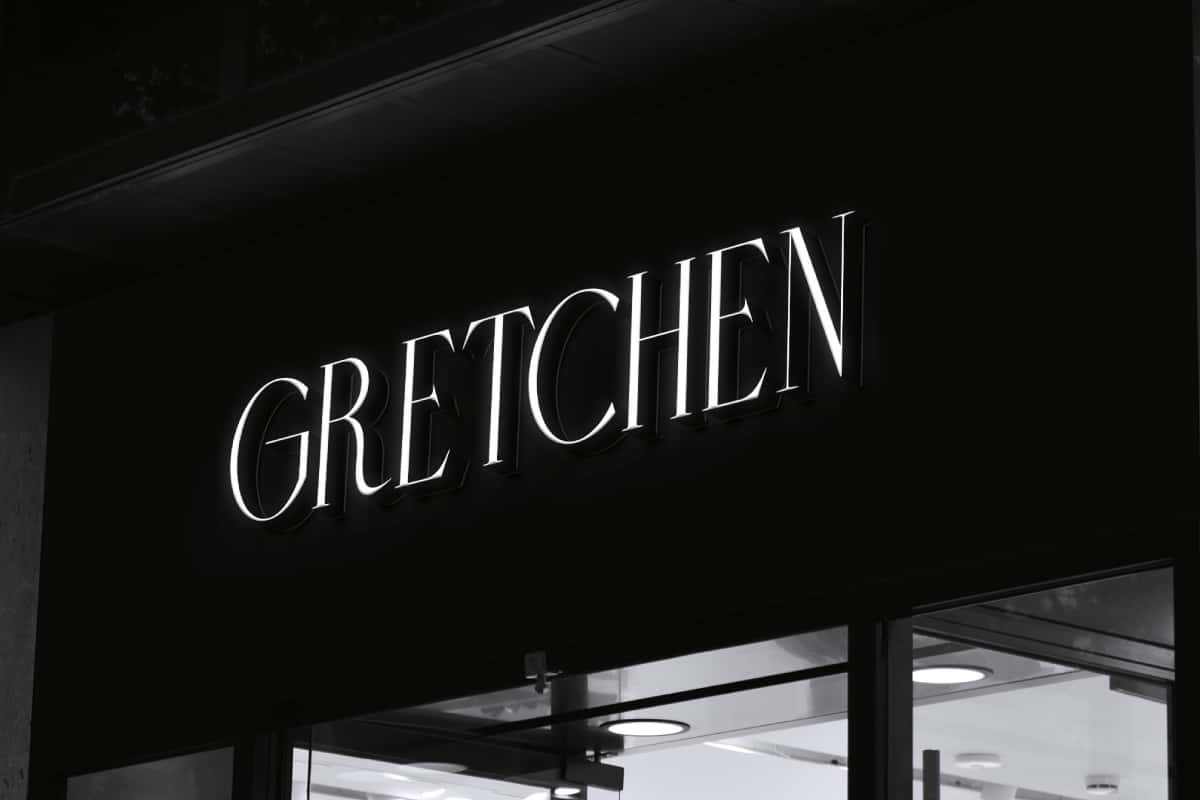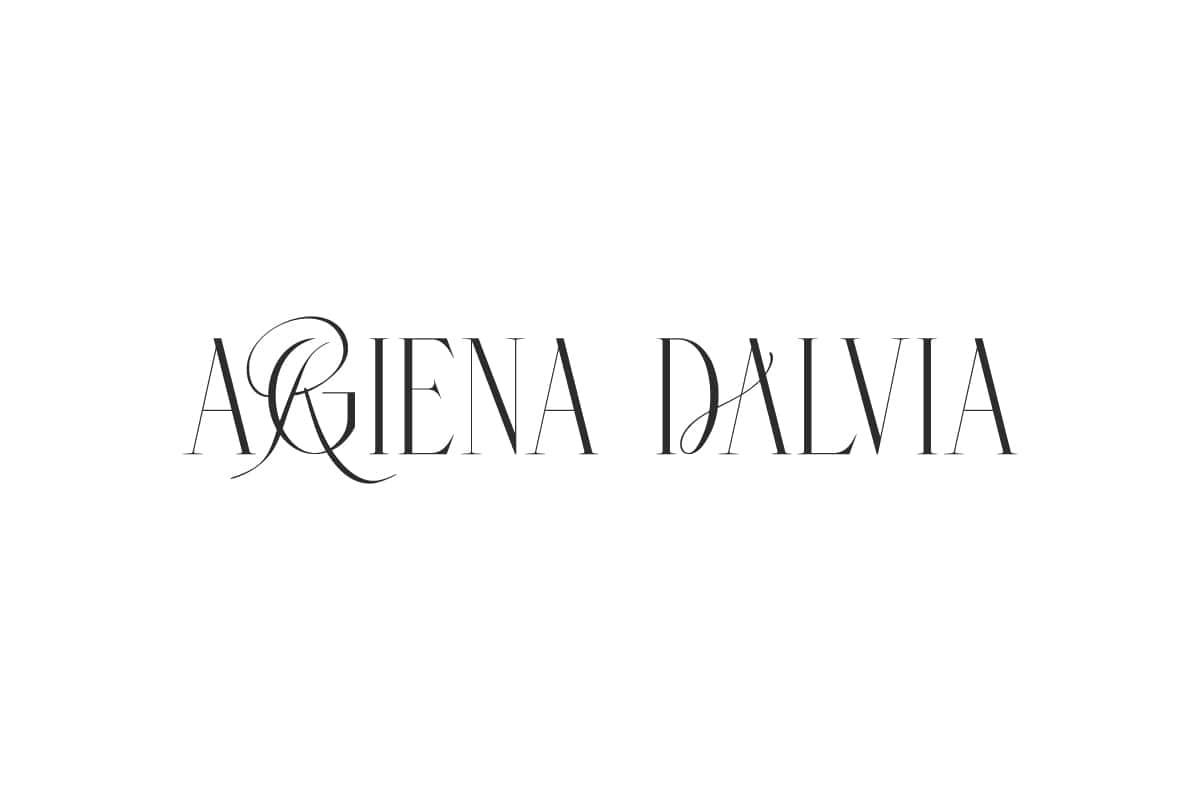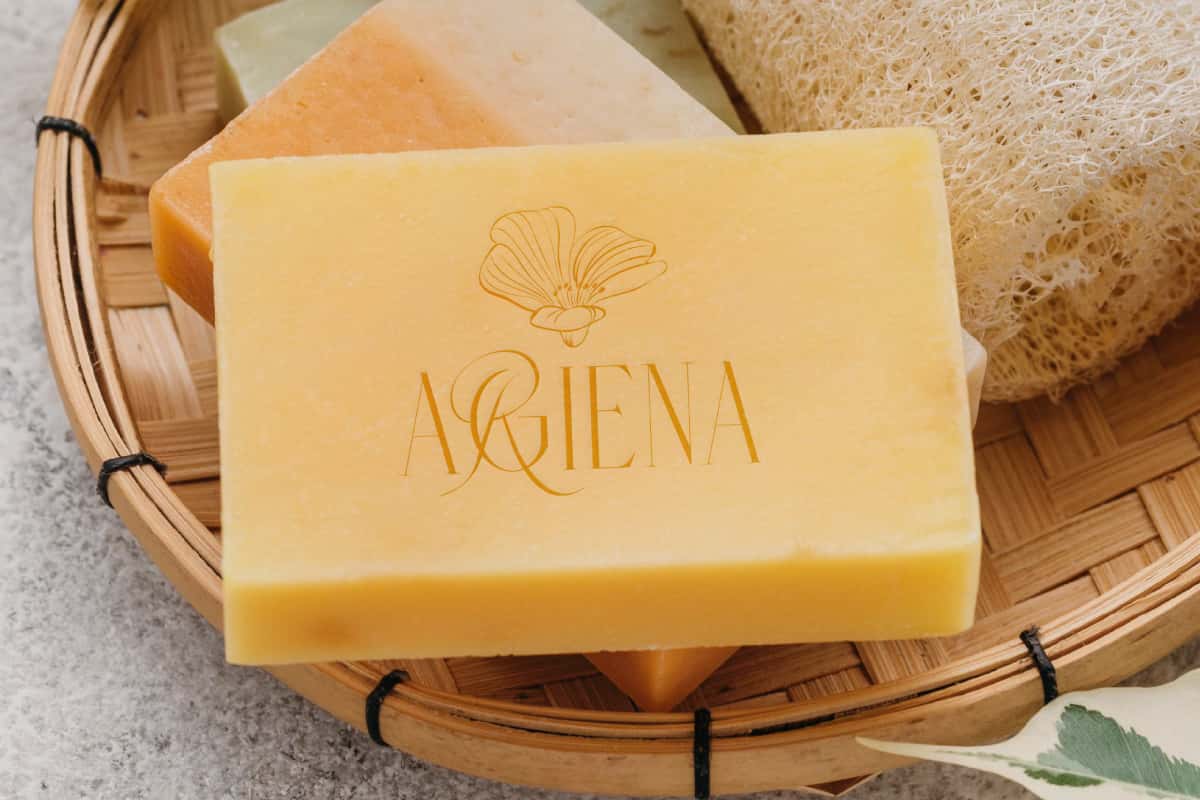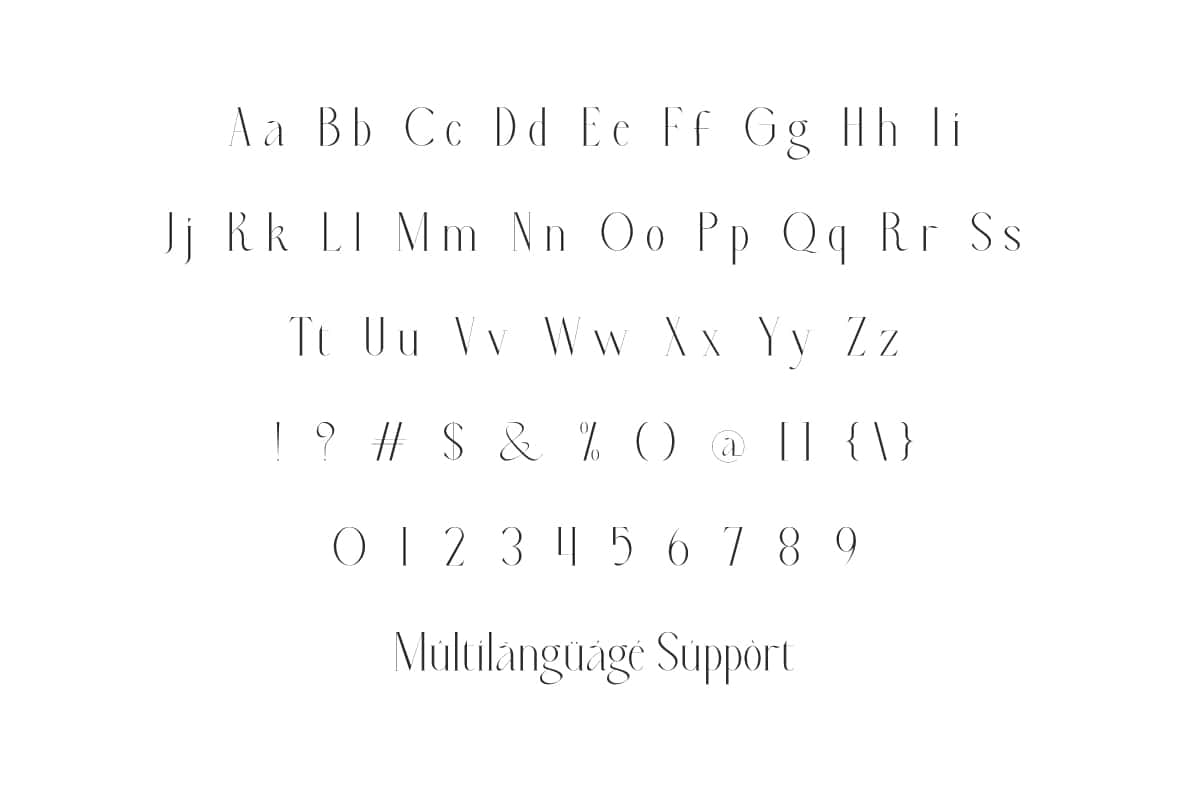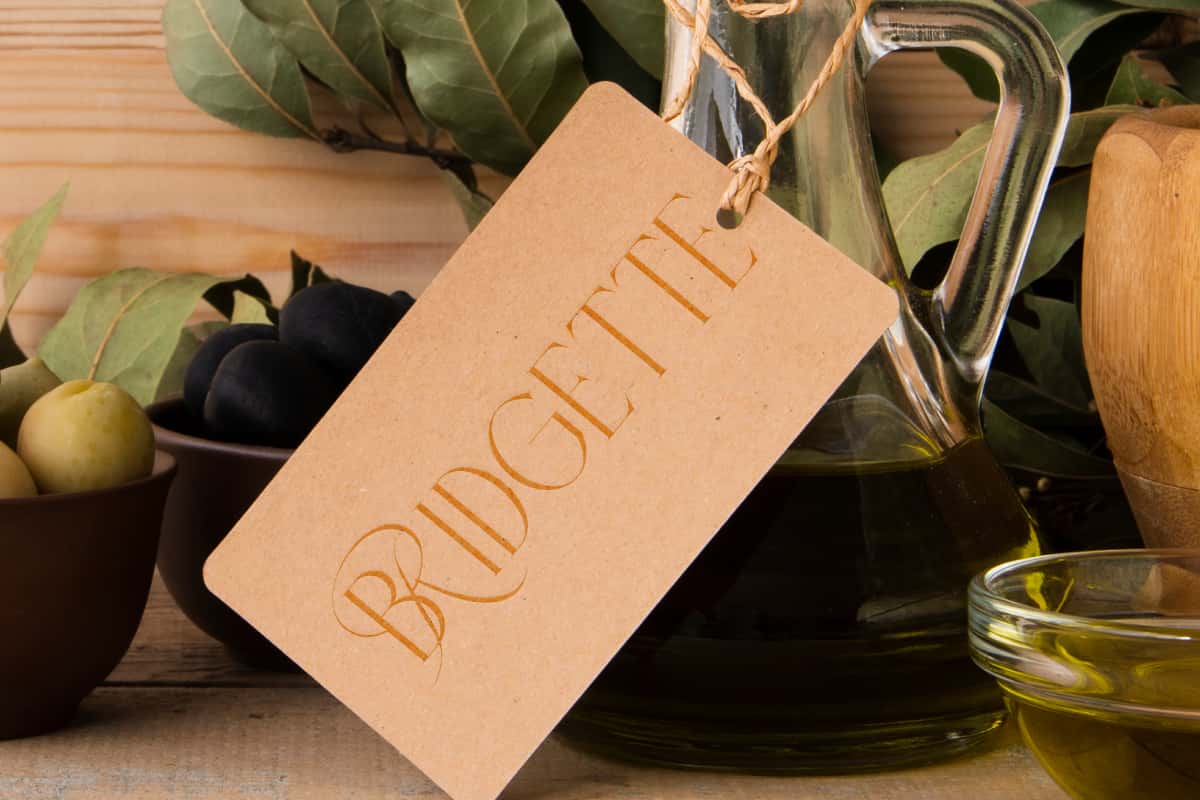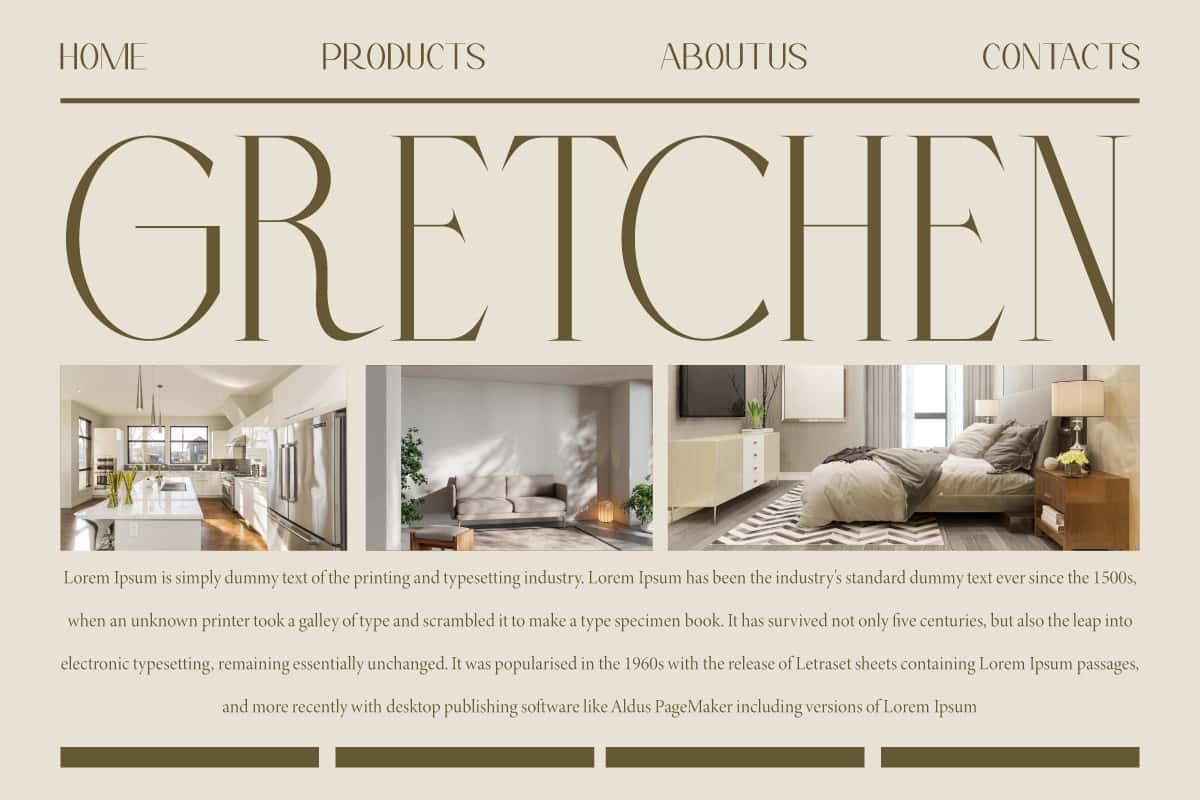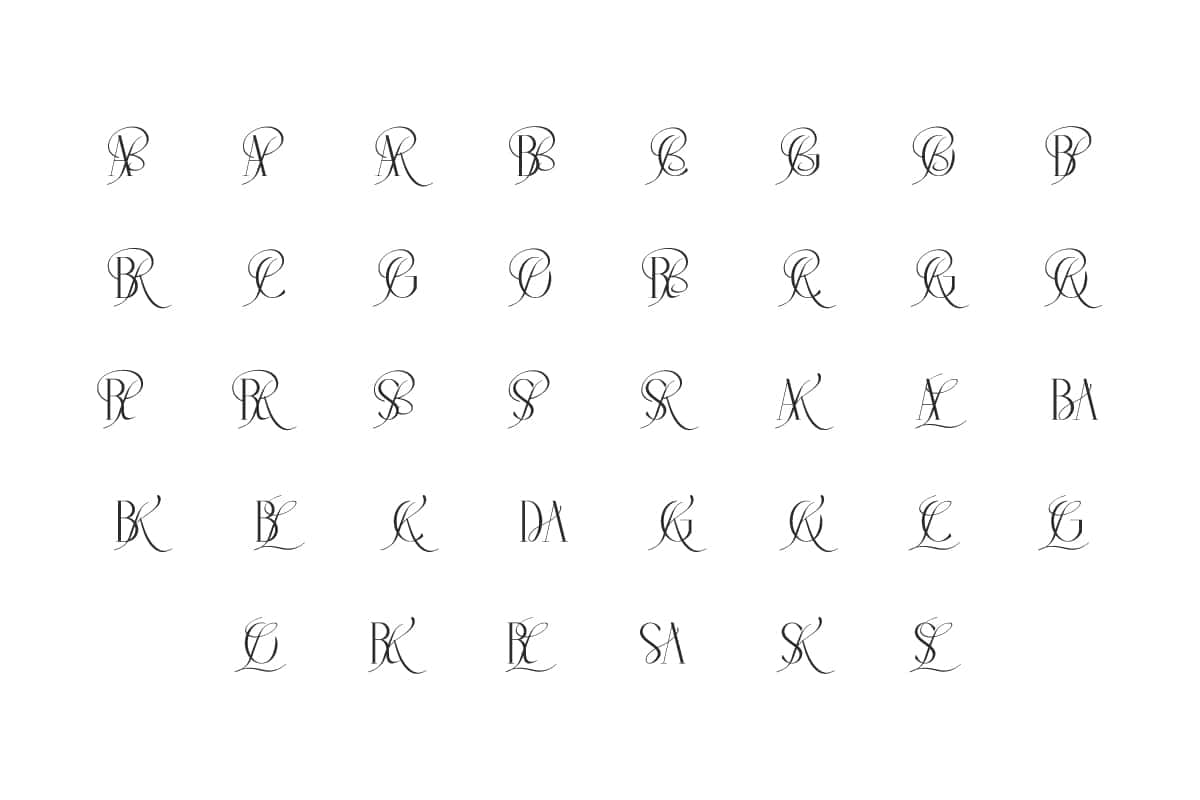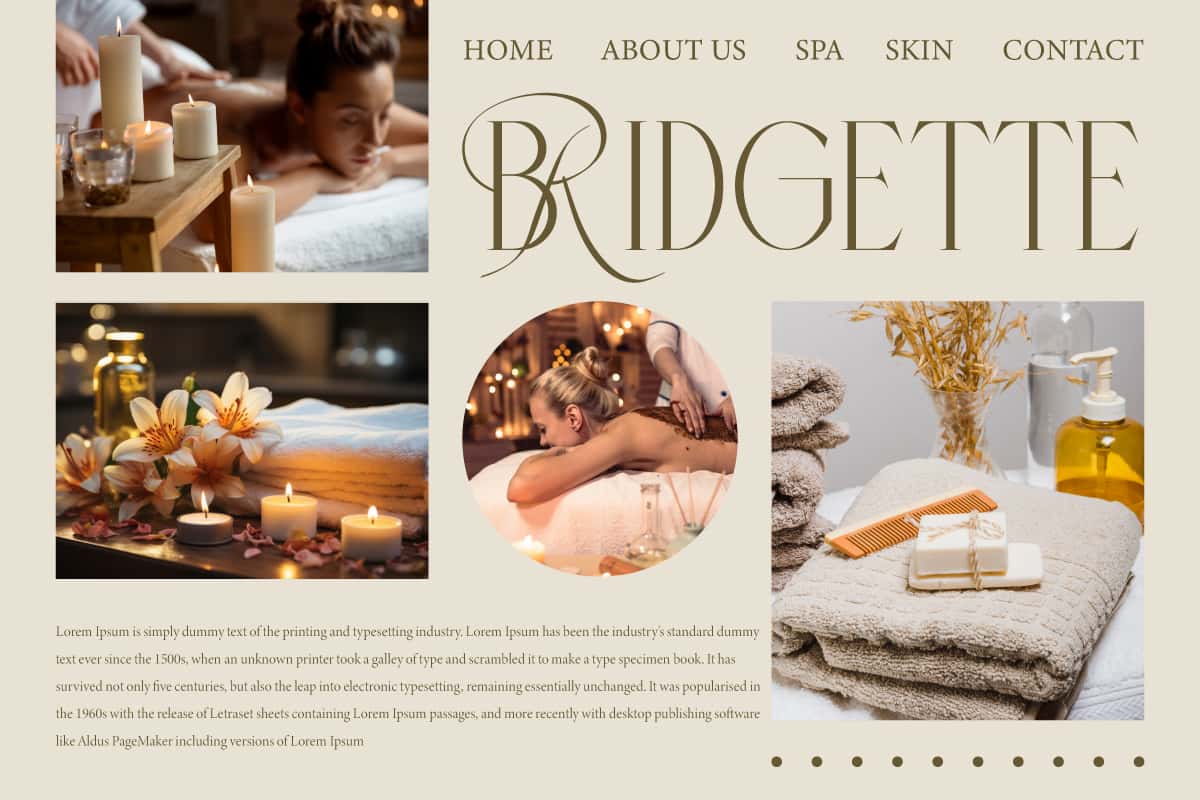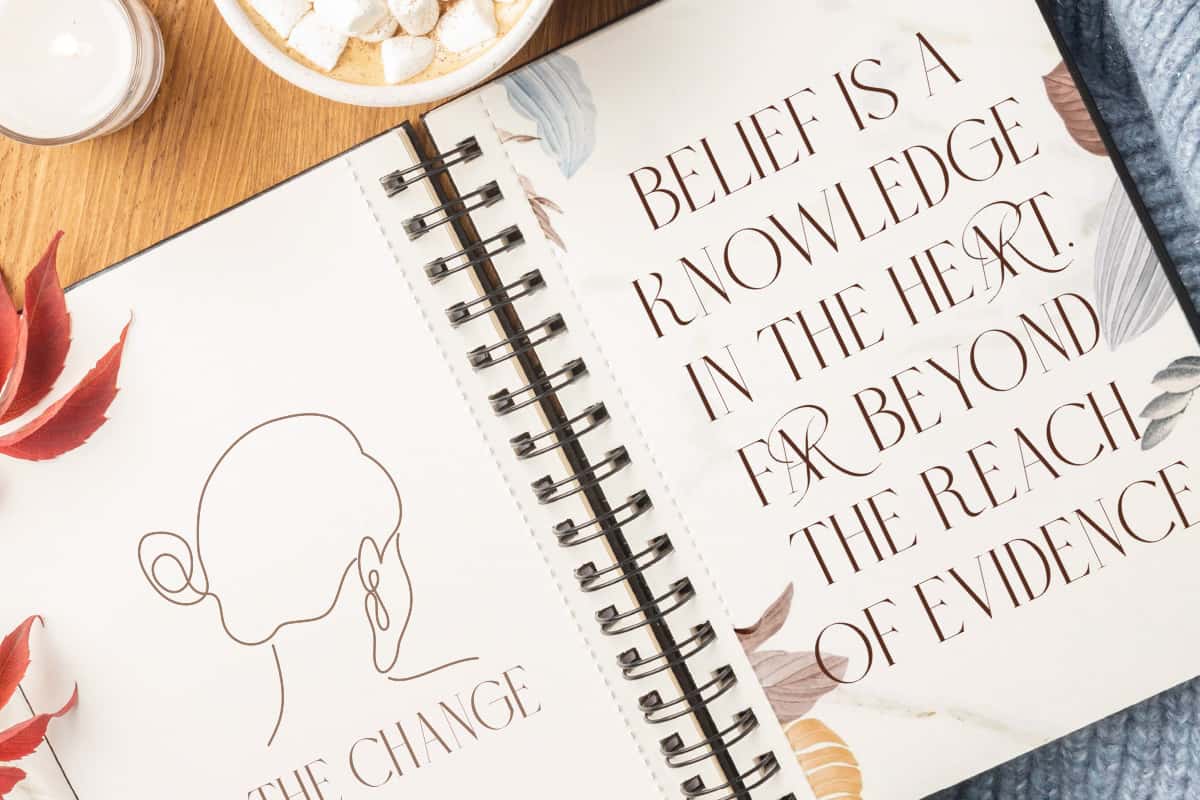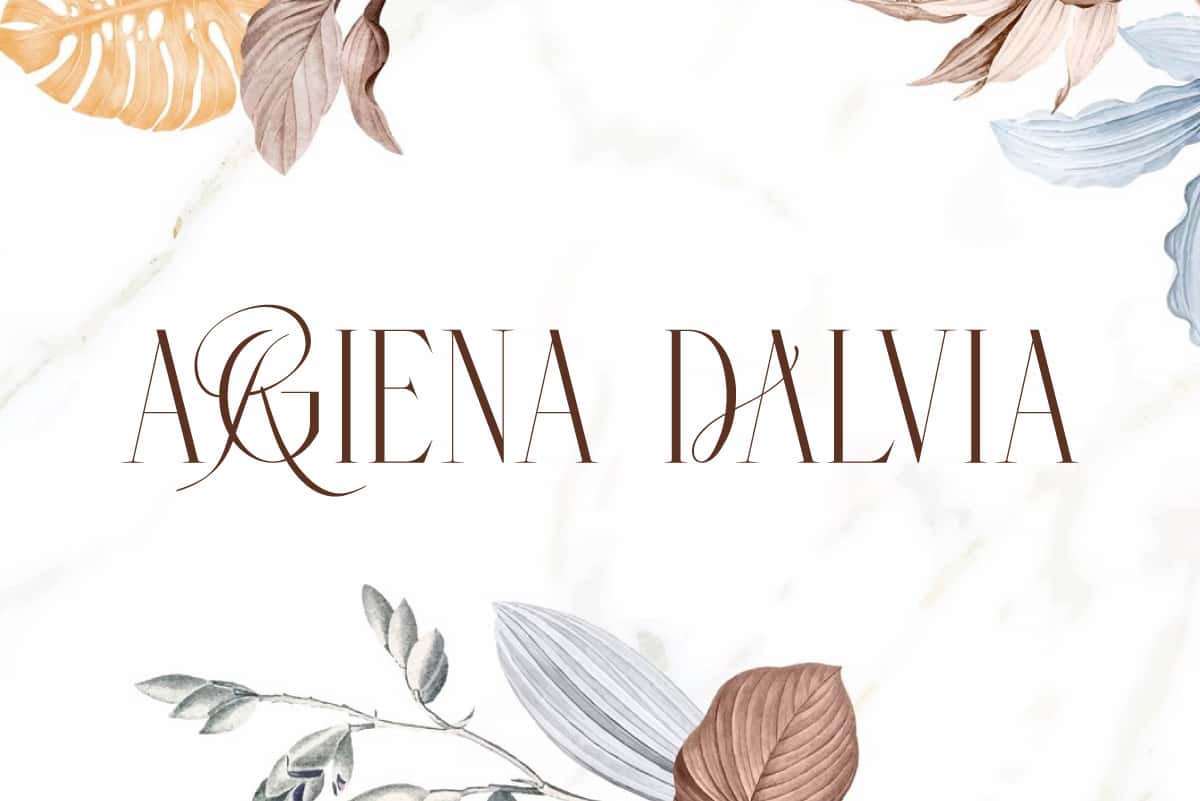
Argiena Dalvia Font is a refined serif font that blends modern aesthetics with premium details, perfect for high-end branding.
Argiena Dalvia Font is a modern and elegant serif font that blends stylish design with timeless class, perfect for any sophisticated project. It would be very suitable to be used too in book covers, brochures, business cards, certificates, editorial design, fashion magazines, greeting cards, headlines, invitations, labels, logos, magazine catalog, mockup, product packaging, quotes, signage, stationery, title, website and many more.
Argiena Dalvia Font includes full set of Uppercase and Lowercase Basic Characters, Numbers, Punctuation, Symbols and Ligature. Thoughtfully crafted ligatures add fluidity and sophistication to every word you create. So, it is a great choice for beauty brands, consulting, cosmetics, education, fashion, finance, fine dining, hospitality, jewelry, law firms, lifestyle brands, luxury goods, wedding industry, etc.